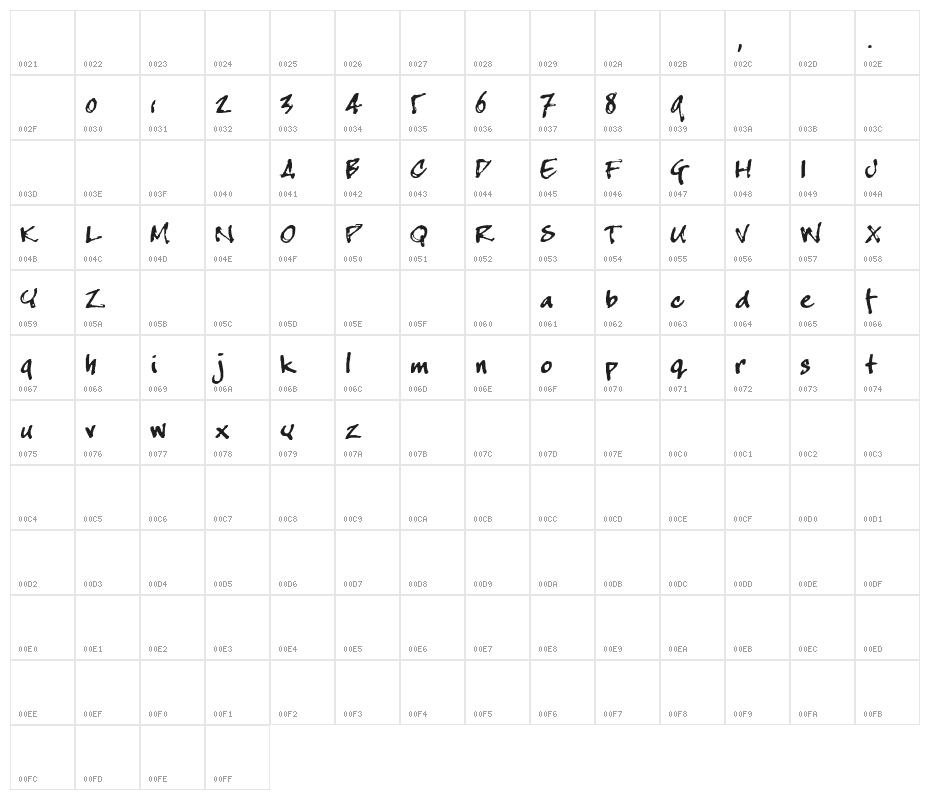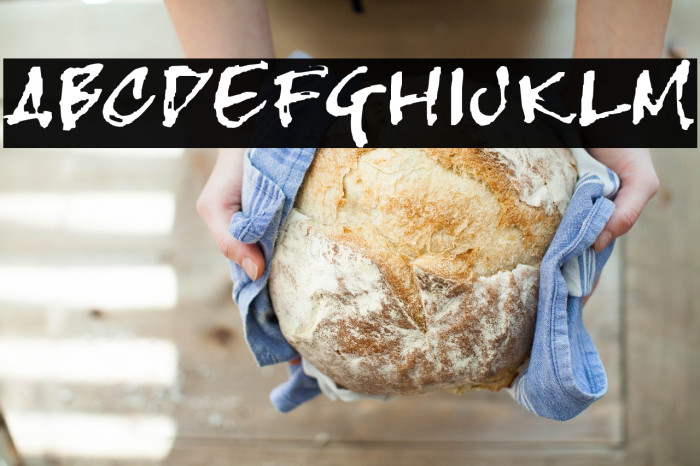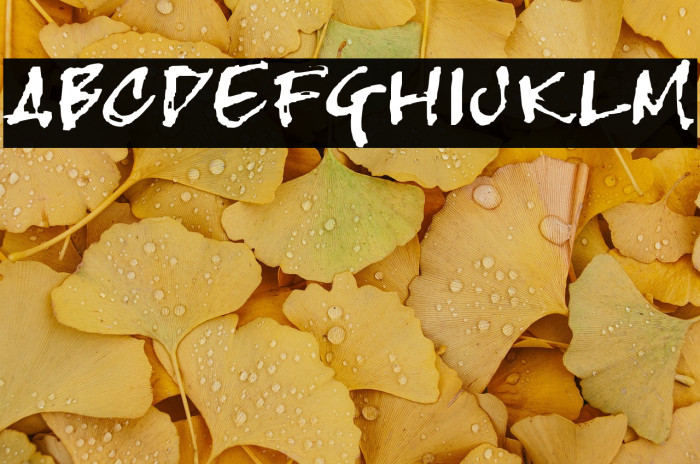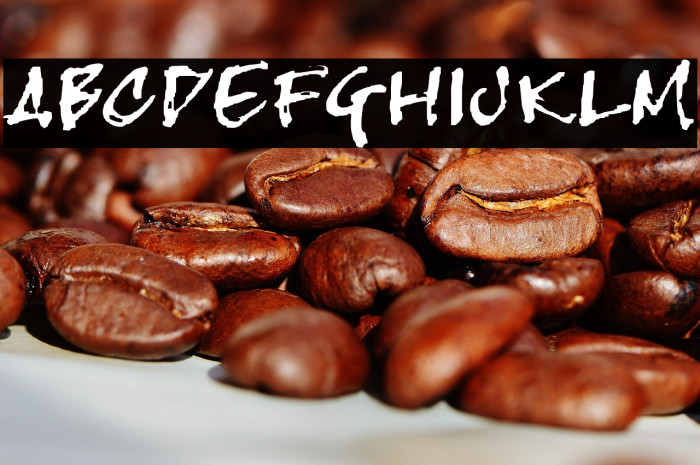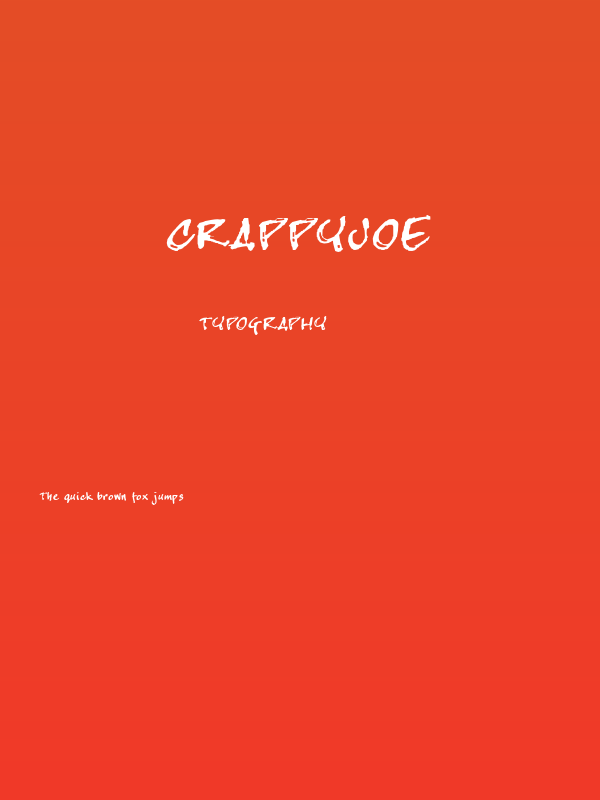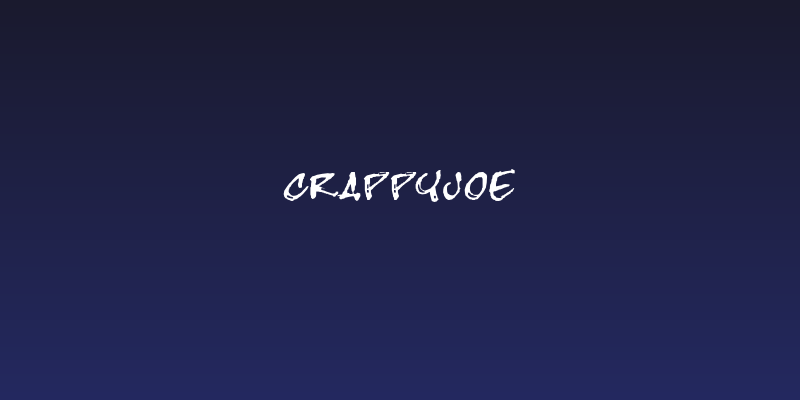
CrappyJoe Font
CrappyJoe Description
This font exhibits a bold, expressive style with a hand-painted appearance. The characters are irregular and dynamic, giving a sense of movement and energy. The strokes are thick and uneven, with a rough texture that adds to its handcrafted feel. The uppercase and lowercase letters maintain a consistent style, while the numbers and special characters complement the overall aesthetic. This font's unique character makes it stand out, ideal for projects that require a personal touch.
| Use Case | Logos, Posters, Artistic projects |
| Proposed Projects | Ideal for artistic projects, branding, posters, and any design that requires a personal, handcrafted touch. |